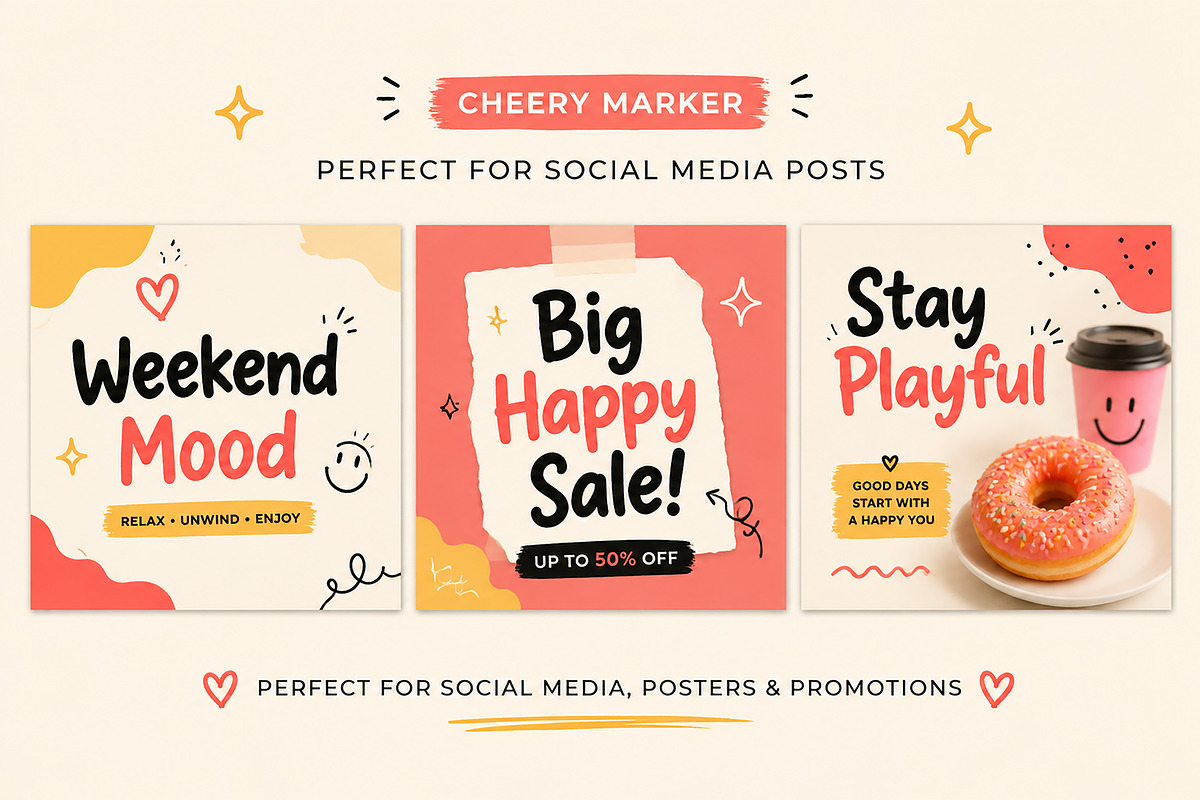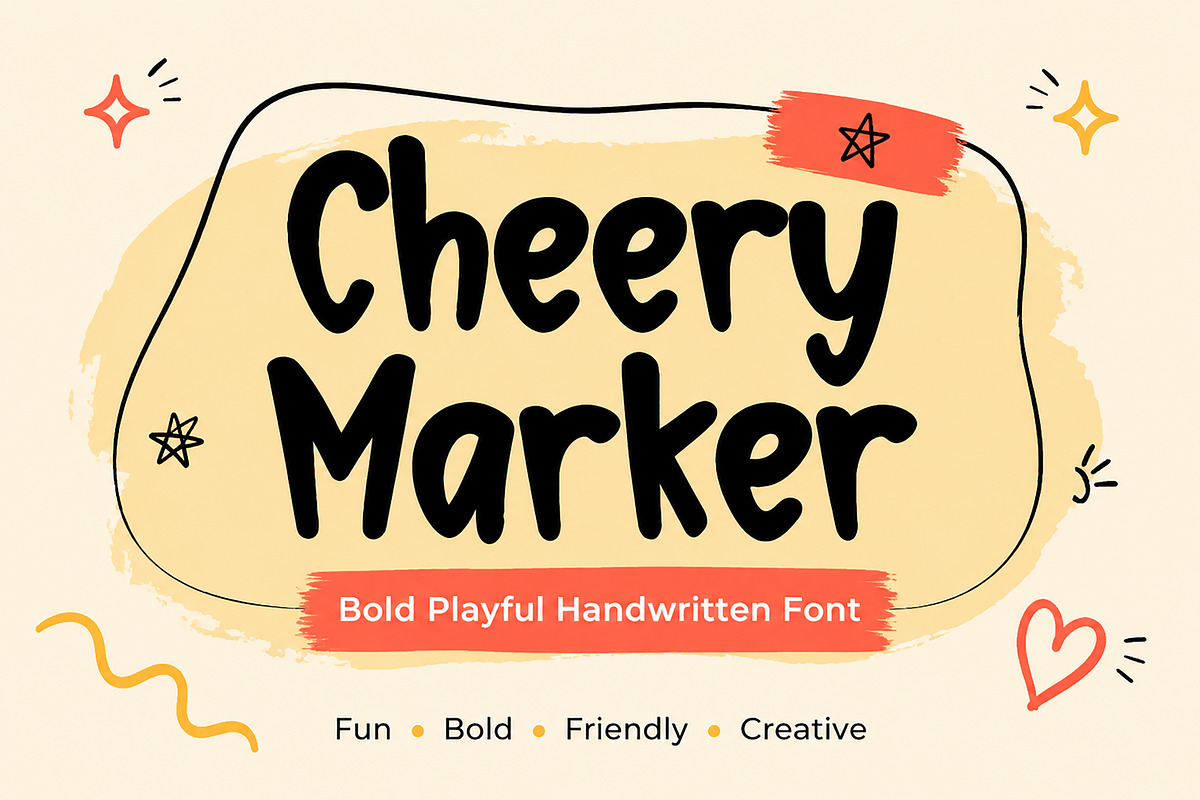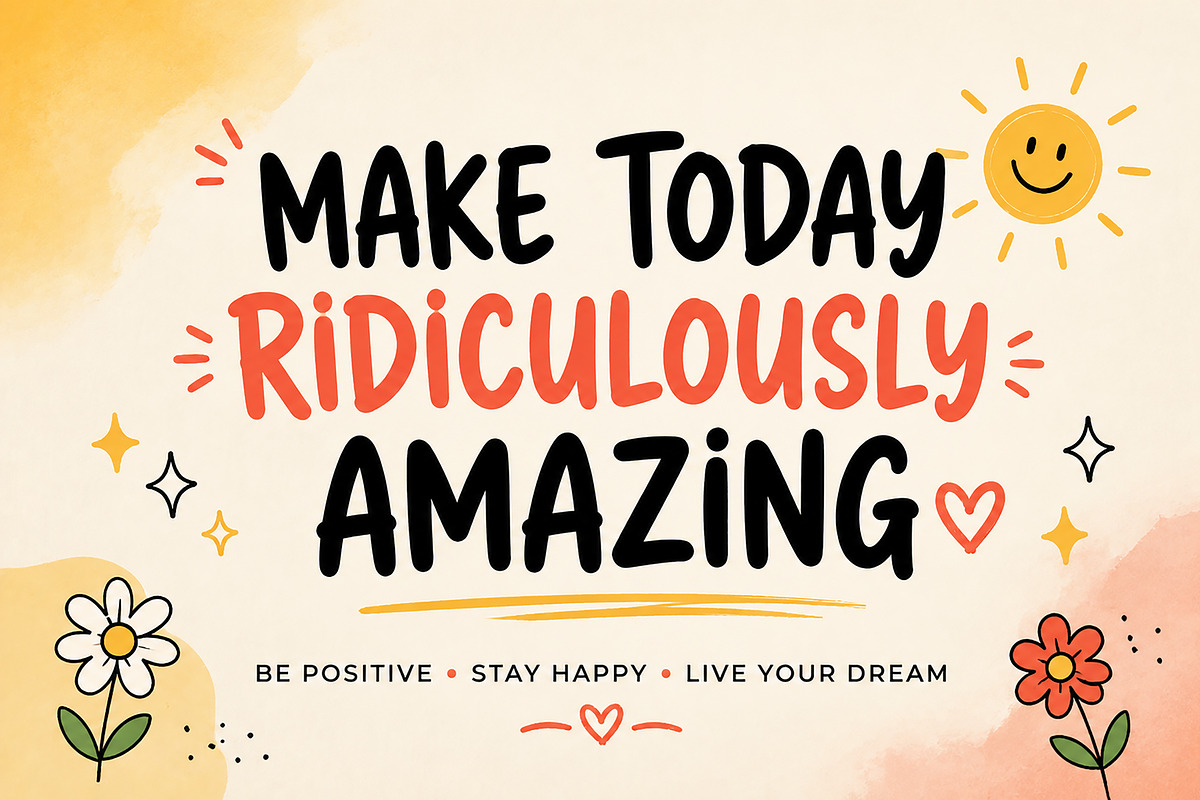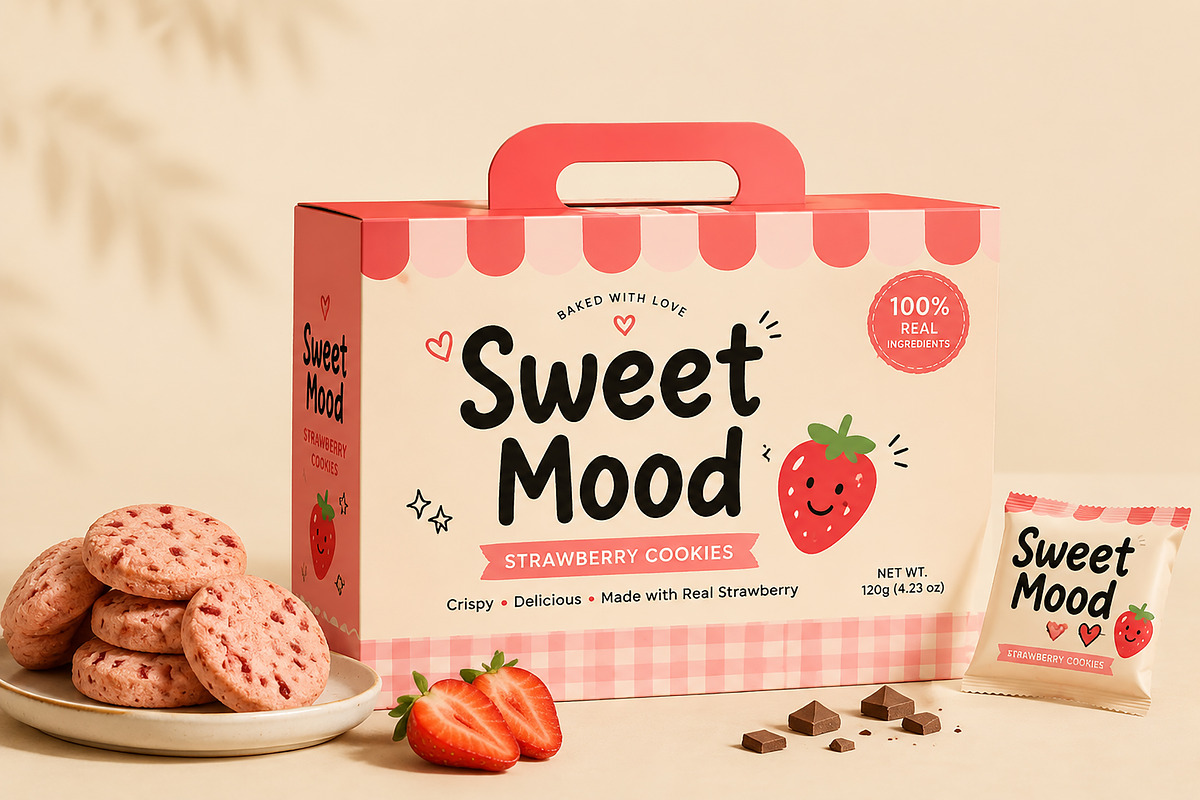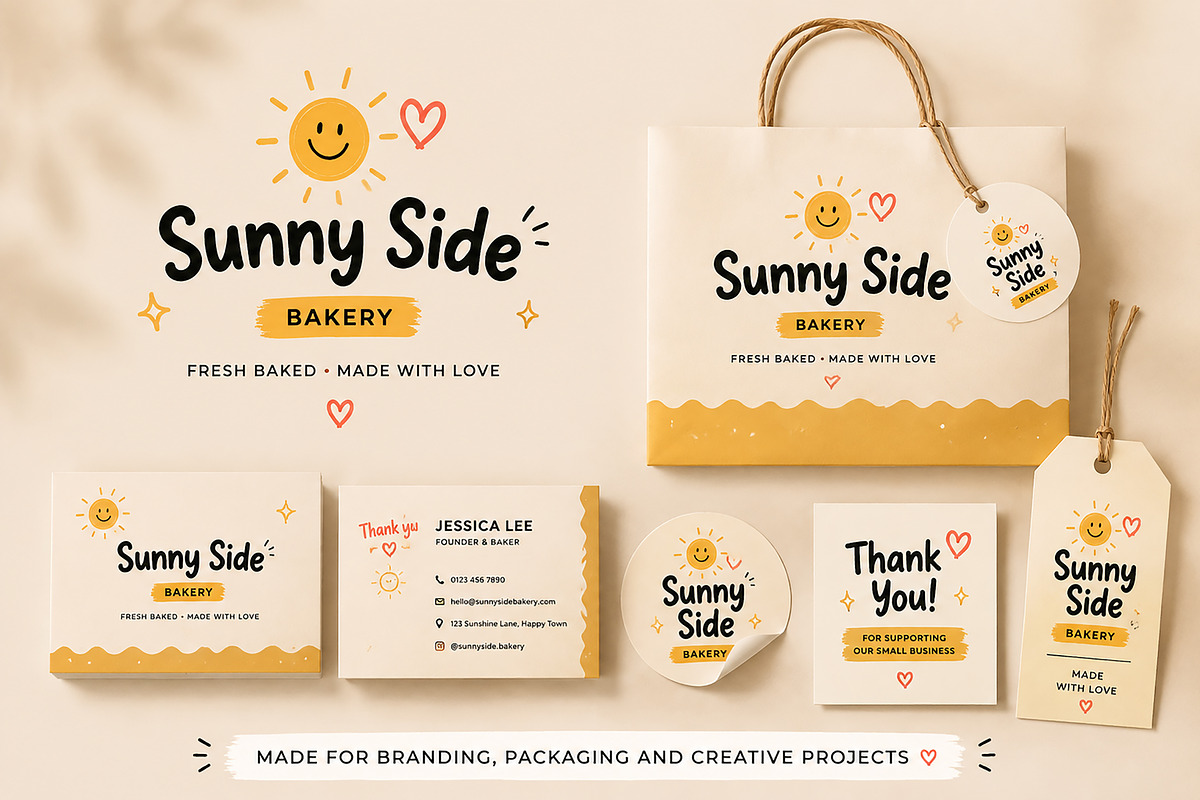
Cheery Marker - Playful Handwritten
Cheery Marker
Cheery Marker is a bold, playful handwritten font designed to bring warmth, fun, and personality to your creative projects. Inspired by the natural look of marker lettering, it delivers an authentic handcrafted feel while remaining clean, highly readable, and versatile.
Whether you're designing eye-catching social media graphics, branding, product packaging, posters, or merchandise, Cheery Marker adds a cheerful and friendly touch that instantly grabs attention.
Perfect for designers, small businesses, content creators, and creative entrepreneurs looking for a bold handwritten font with a modern, energetic style.
Branding & Logo Design
Social Media Posts
Instagram Graphics
Posters
Greeting Cards
Stickers
T-Shirt Designs
Children's Products
Café & Bakery Branding
Handmade Product Labels
YouTube Thumbnails
Printable Designs
Marketing Materials
Creative Projects
Bold Handwritten Style
Fun & Friendly Appearance
Clean and Easy to Read
High-Quality Letterforms
Perfect for Display Text
Smooth Marker-Inspired Look